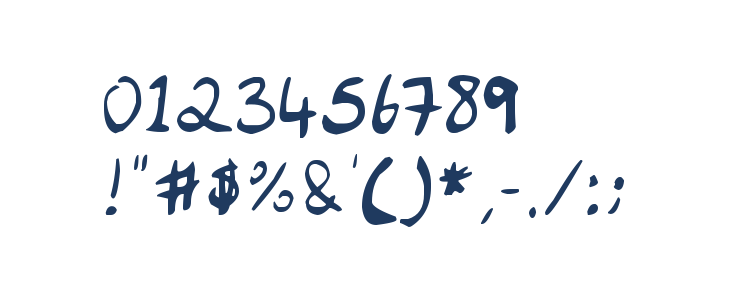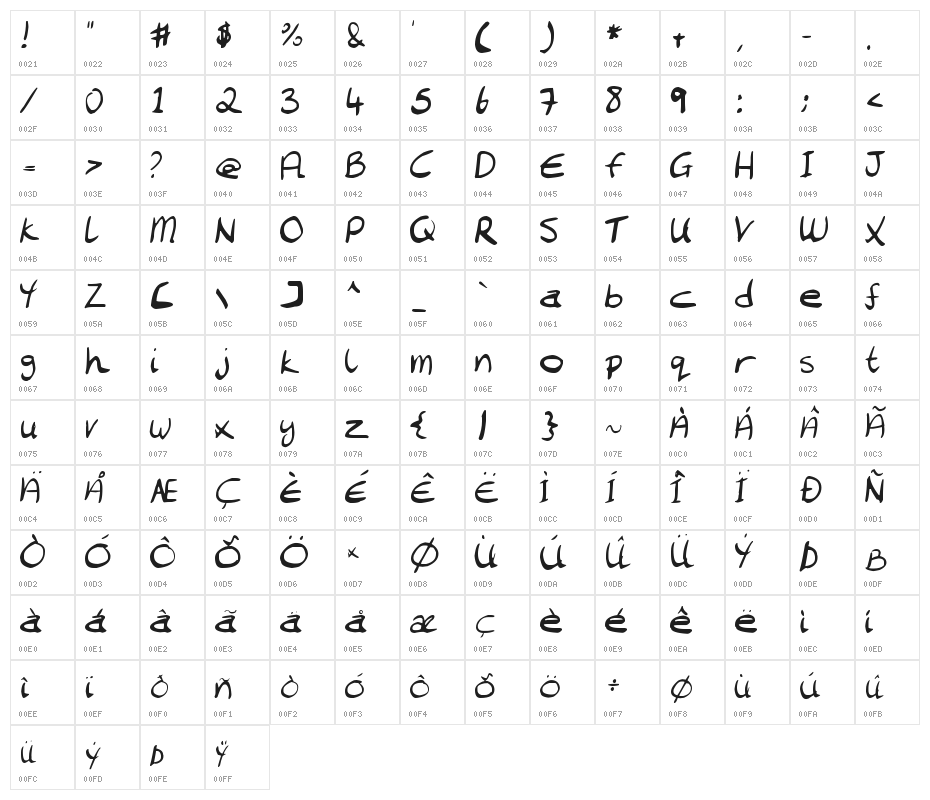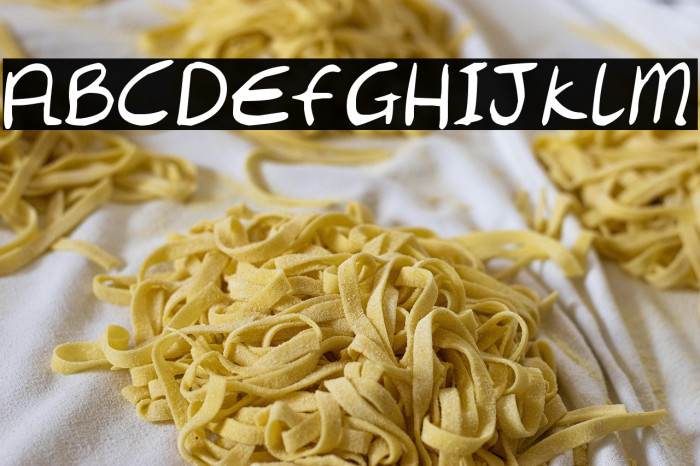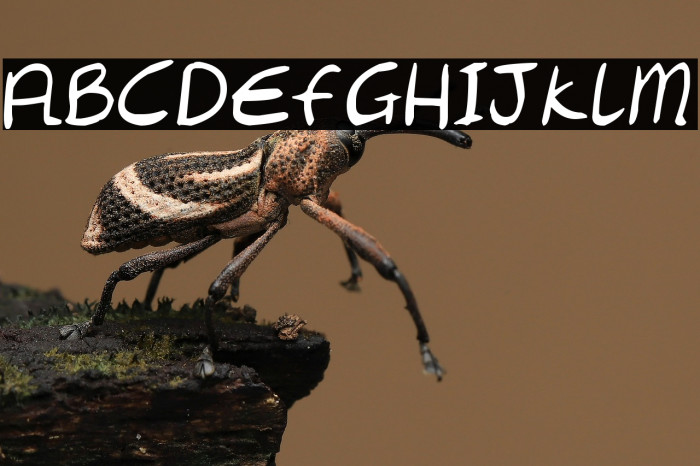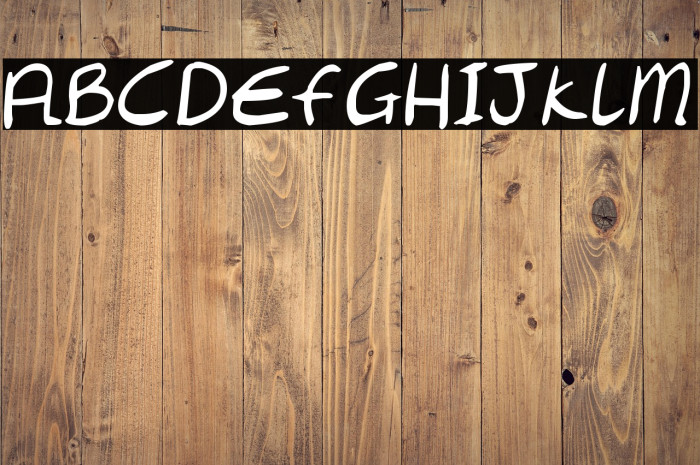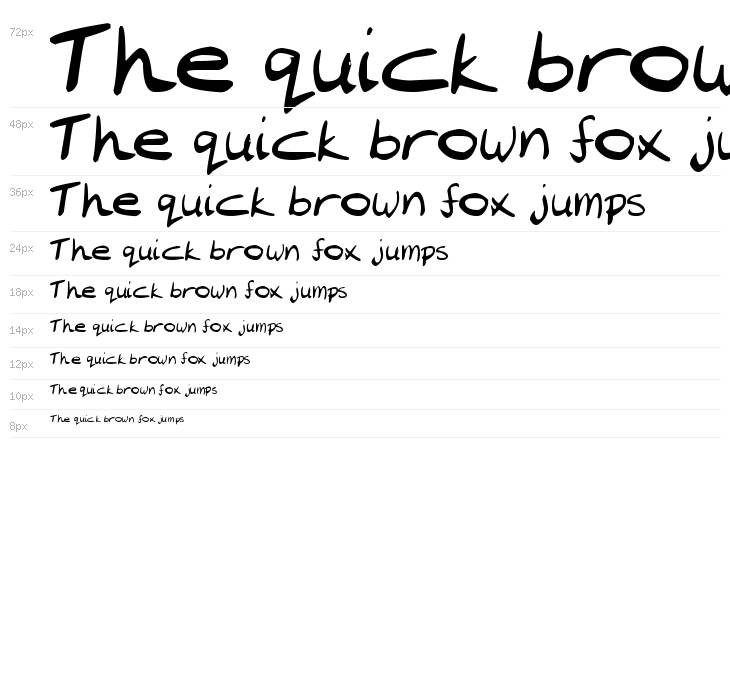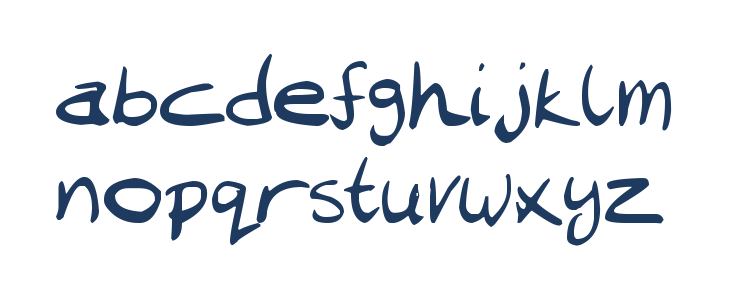
Chantell Hand Font
Chantell Hand Description
This font exudes a playful and casual handwritten style, characterized by its fluid and slightly irregular strokes. The letters have a natural flow, mimicking the spontaneity of real handwriting. Each character is distinct, with varying stroke thickness that adds a dynamic and lively feel. The uppercase letters are bold and prominent, while the lowercase letters maintain a consistent yet relaxed appearance. Numbers and special characters follow the same informal style, making the font versatile for creative projects. The overall design is approachable and friendly, suitable for conveying warmth and personality.